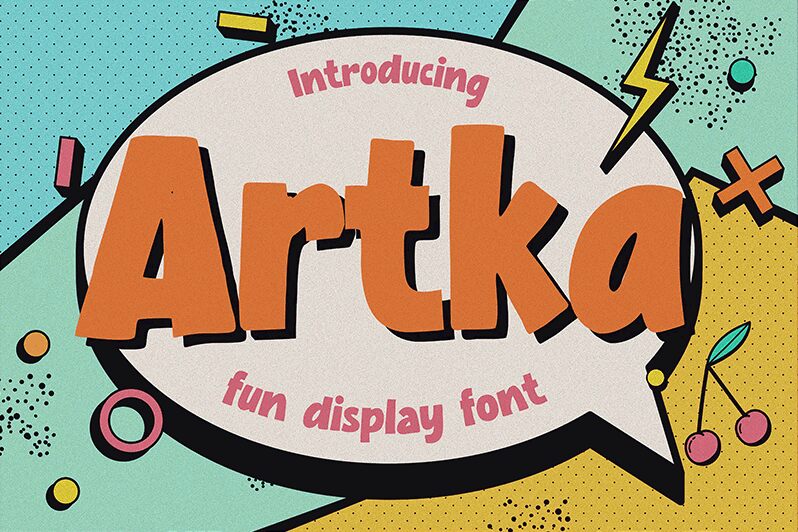
Artka
Artka by Gassstype stands as a bold testament to the playful charm of display fonts, infusing every creation with its cartoon-inspired verve. This modern, fun display font boasts dramatic movement and a casual flair that brings written words to life. Ideal for a spectrum of creative endeavors, Artka's textured authenticity makes it an irresistible choice for designers aiming to craft projects with a contemporary yet whimsical touch.
Its robust weight complements the spirited character of labels and posters, ensuring that your design not only stands out but also resonates with an engaging, authentic vibe. Whether it's branding exercises or personal DIY undertakings, Artka elevates your work with its lively presence. From greeting cards to web design, photography overlays to scrapbooking – this font adds that extra spark.
Moreover, Artka doesn't shy away from versatility; activate its Alternate glyphs via the OpenType panel to unlock even more stylistic potential for your project designs. Embrace the natural look and feel of Artka in your next creative challenge and watch as your ideas transform into captivating visual stories.